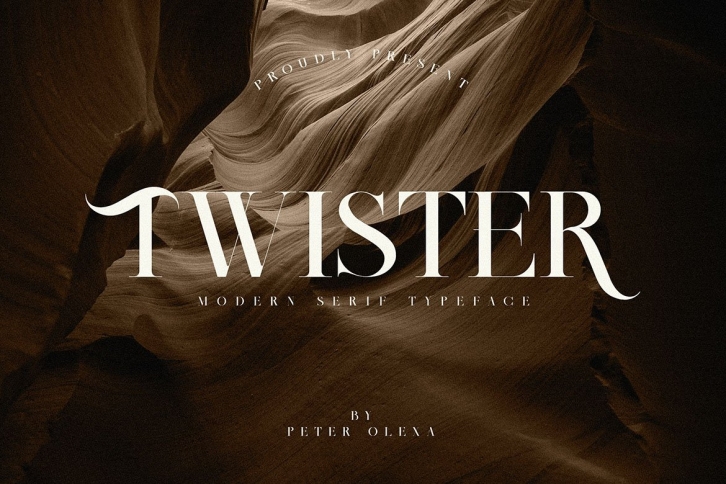
Unique fancy, modern, vintage & decorative serif font. Comes with multilingual support & ligatures - great for your new logo or branding project.
- Great for retro or vintage style branding projects